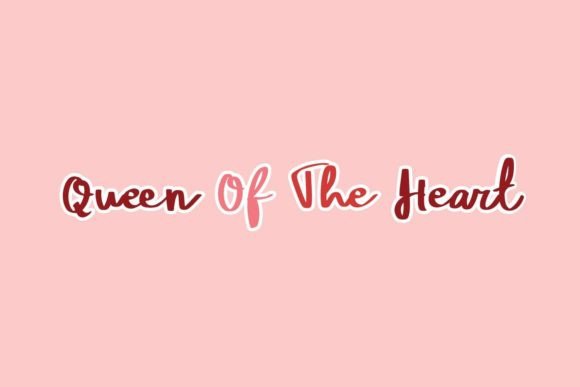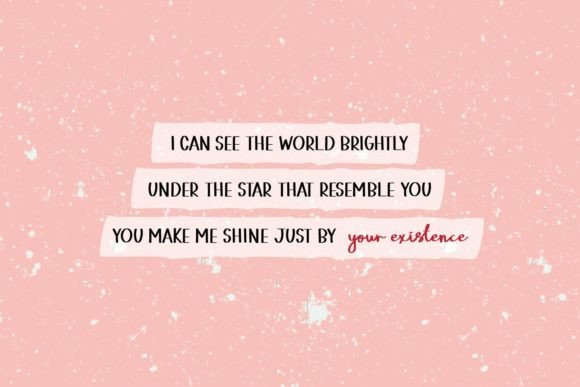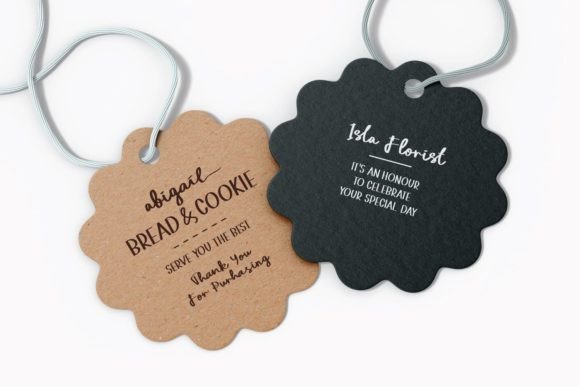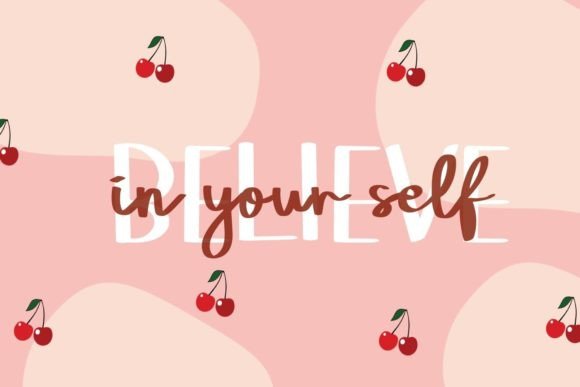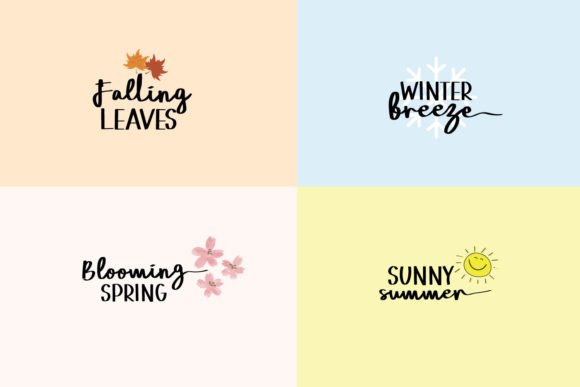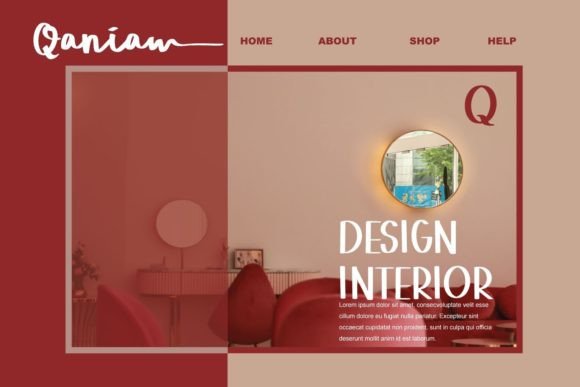
Introduction to Cherry Dreamy Font
Cherry Dreamy is a font duo of a lovely script and sans serif.
These fonts match well with each other Cherry Dreamy Script is featured with a few ligatures to give you a surprise and make your creations more interesting, also included with swash alternates so it becomes even lovelier.